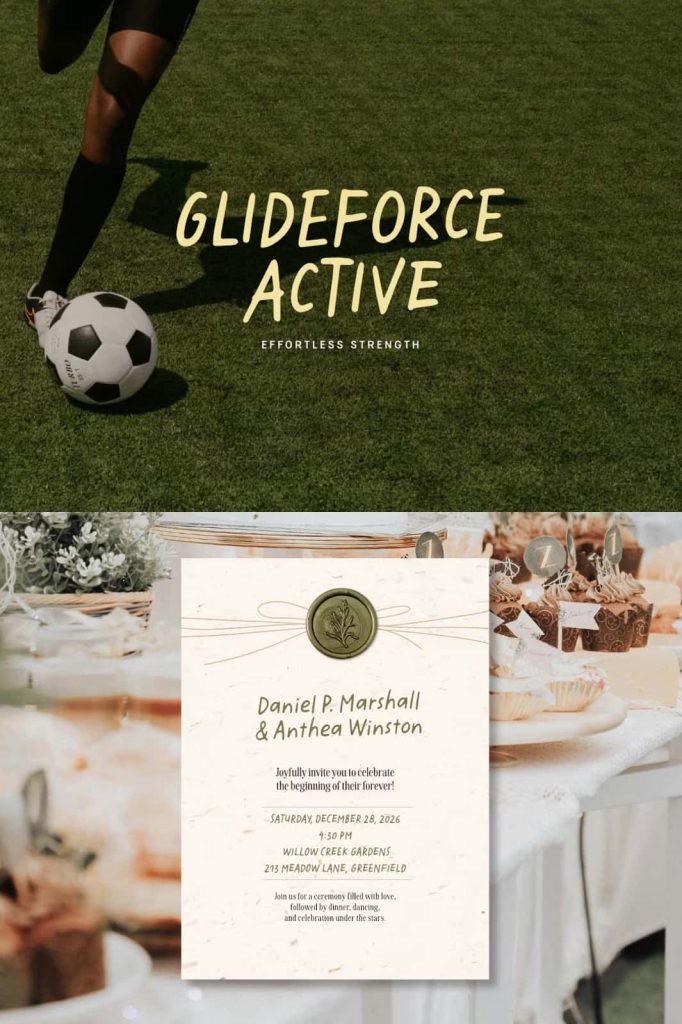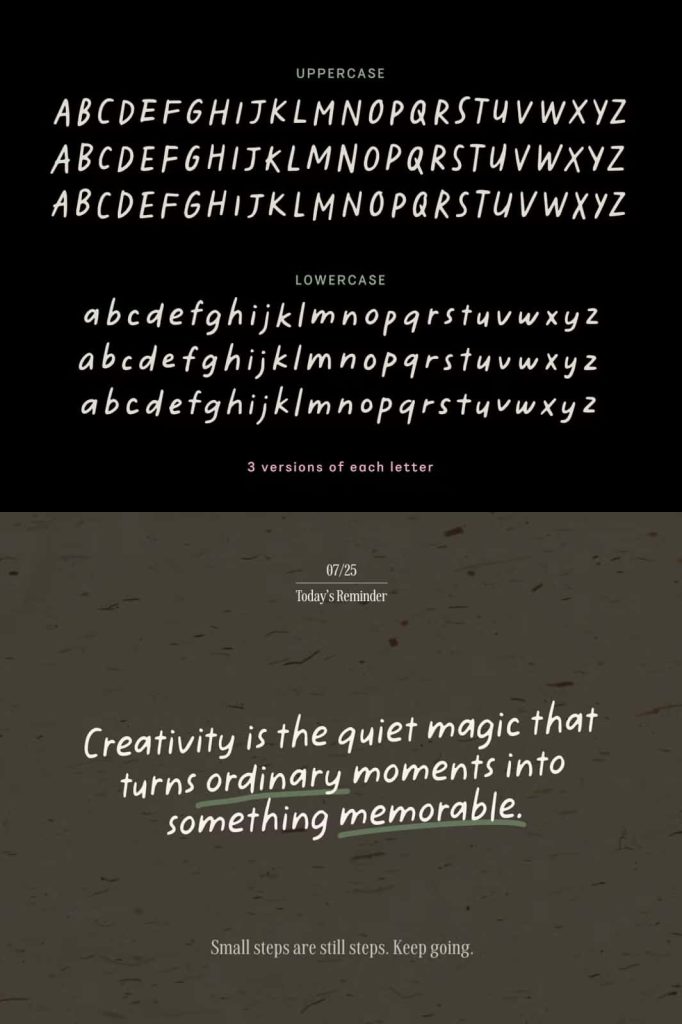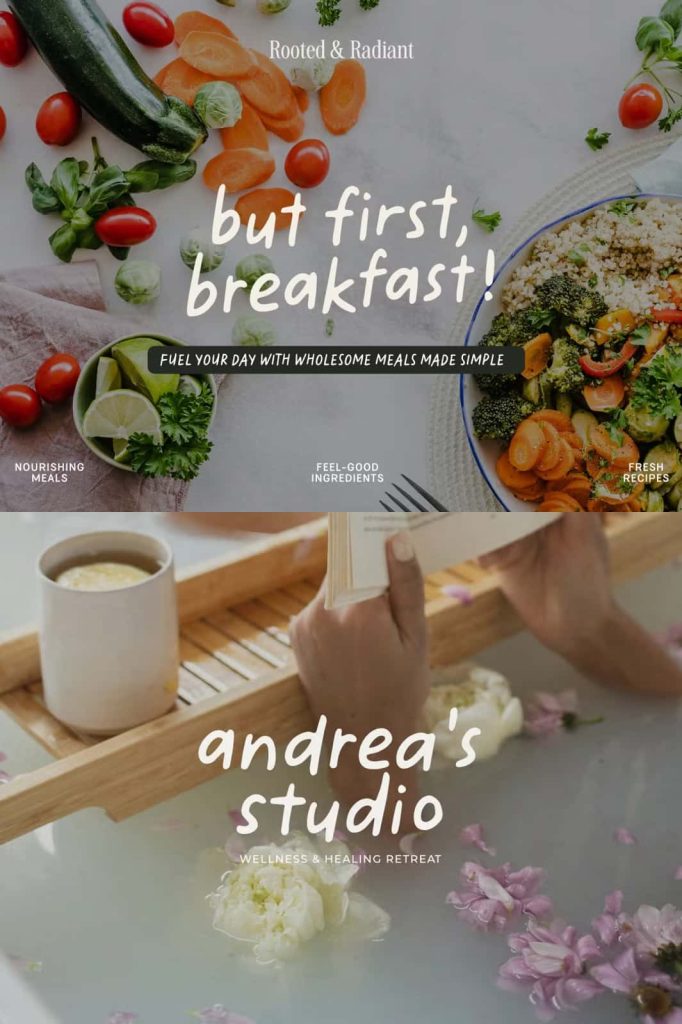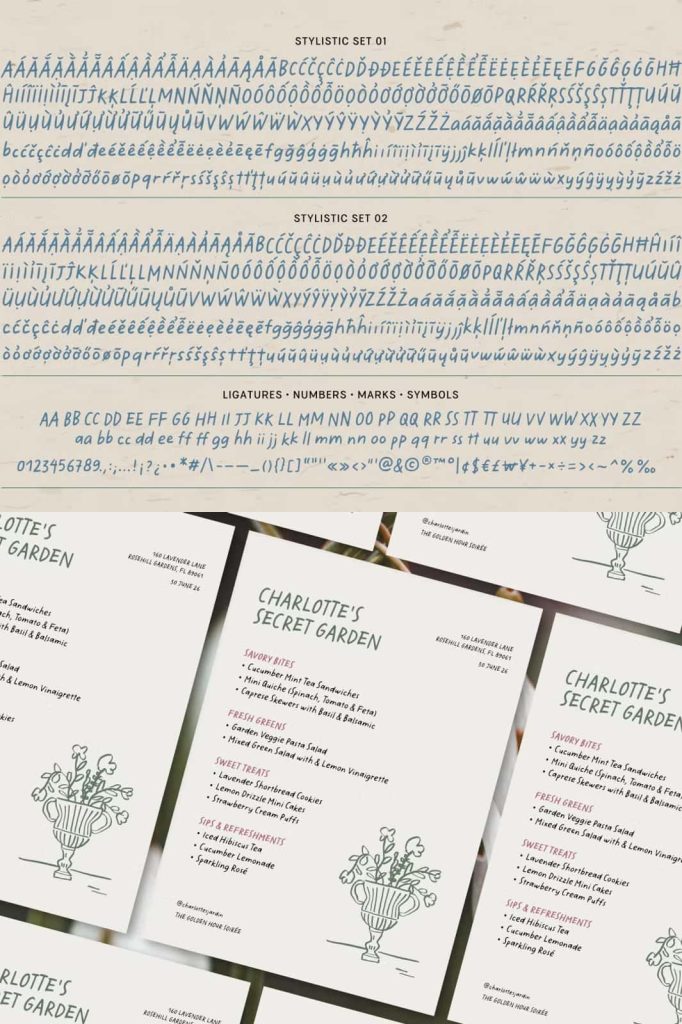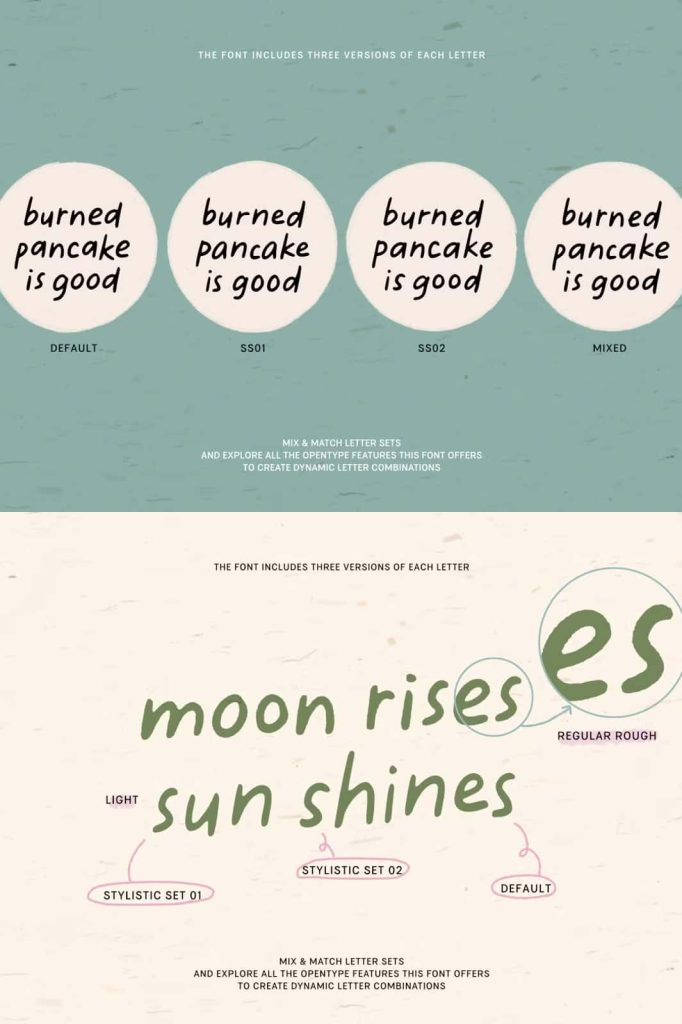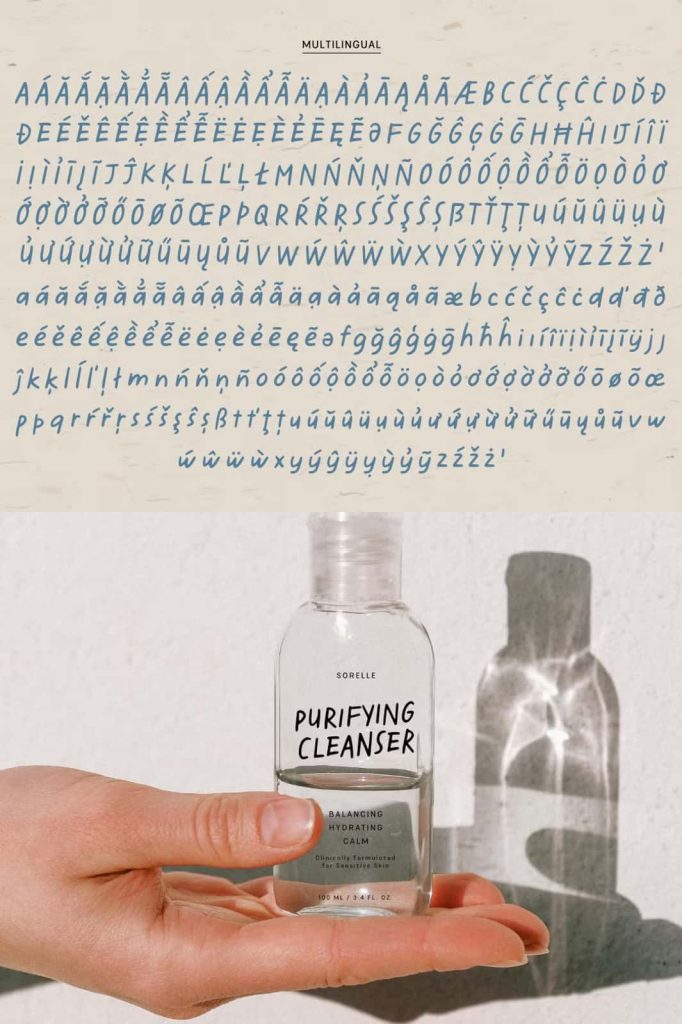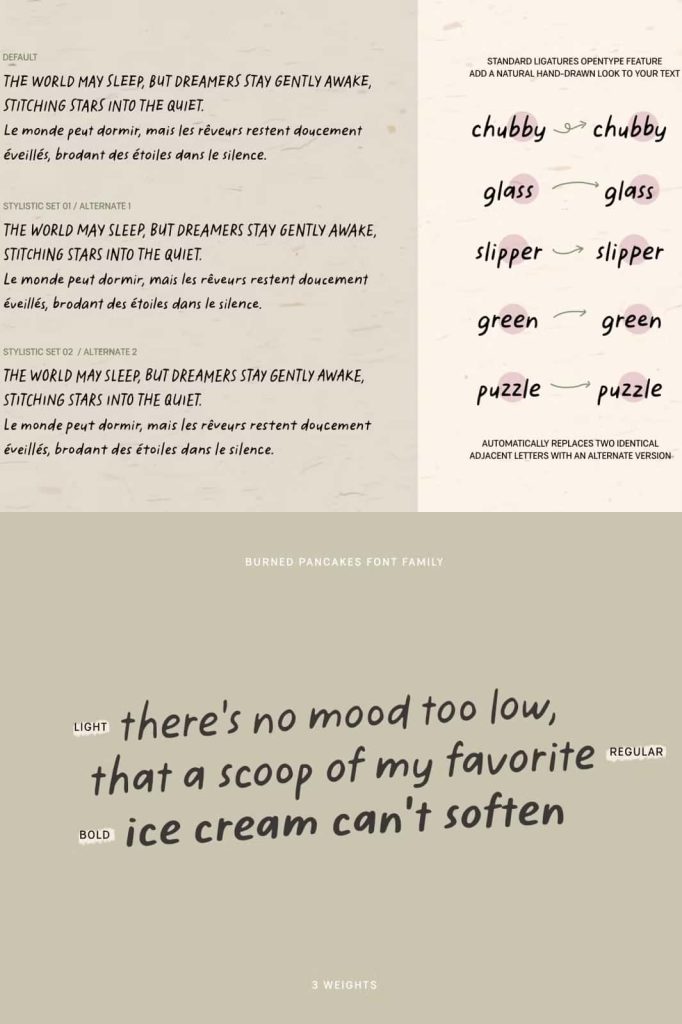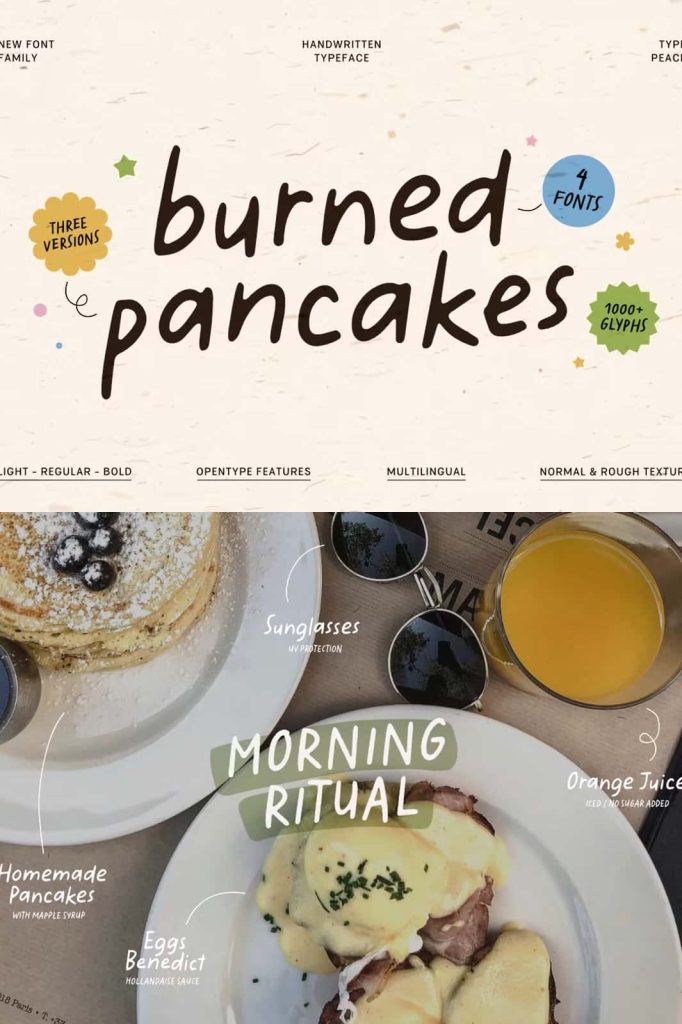
BURNED PANCAKES | Handwritten Font
Burned Pancakes Handwritten Typeface – A Playful and Relaxed Font Full of Personality
Burned Pancakes is a charming handwritten typeface designed to bring warmth, creativity, and authenticity to your design projects. Featuring relaxed letterforms, casual strokes, and a naturally flowing rhythm, this font captures the essence of genuine handwriting while maintaining excellent readability. Its playful personality makes it an ideal choice for designers who want to create approachable, engaging, and memorable visual experiences.
Unlike rigid or overly structured fonts, Burned Pancakes embraces a laid-back style that feels comfortable and inviting. Every character reflects a natural handwritten movement, helping designs communicate friendliness and creativity. Whether you are working on branding, social media content, packaging, invitations, promotional materials, or personal projects, this typeface adds a distinctive handcrafted touch that helps your message stand out.
With three variations of each letter, advanced OpenType features, stylish ligatures, and multilingual support, Burned Pancakes offers both flexibility and functionality. Designers can create typography that feels dynamic and organic while maintaining a polished and professional appearance.
A Handwritten Typeface with Natural Flow
Burned Pancakes was created to capture the relaxed beauty of real handwriting. The font features loose, expressive strokes that flow naturally from one letter to the next, creating smooth and visually appealing text compositions. This effortless rhythm allows designers to build projects that feel personal, authentic, and emotionally engaging.
The font’s casual style helps establish a welcoming tone that appeals to modern audiences. Whether used for short headlines, decorative typography, or longer text elements, Burned Pancakes creates a friendly atmosphere that encourages connection and engagement.
Its handcrafted appearance works exceptionally well in creative industries where personality and originality are important. The font helps brands and creators move away from generic typography and embrace a more distinctive visual identity.
Three Letter Variations for Authentic Typography
One of the standout features of Burned Pancakes is the inclusion of three variations for each letter. These alternate characters allow the font to mimic the natural inconsistencies found in genuine handwriting, preventing repetitive patterns and creating a more realistic appearance.
By automatically rotating between character variations, designers can achieve text that feels fluid and spontaneous. This feature adds visual interest and helps maintain authenticity, especially in larger typography compositions where repeated letters often become noticeable.
The result is typography that feels handcrafted rather than digitally generated, giving projects a unique and personal quality that audiences appreciate.
Benefits of Multiple Character Variations
• Creates a more natural handwritten appearance
• Reduces repetitive letter patterns
• Adds visual diversity to text layouts
• Enhances authenticity and personality
• Improves the overall aesthetic of creative projects
Advanced OpenType Features and Beautiful Ligatures
Burned Pancakes includes powerful OpenType functionality that enhances the overall typography experience. The built-in ligatures automatically connect certain letter combinations, producing smoother and more visually pleasing text.
These natural connections create a seamless handwritten effect that improves readability while maintaining the font’s artistic character. Designers can take advantage of these features to create sophisticated typography without requiring extensive manual adjustments.
The OpenType capabilities make Burned Pancakes an excellent choice for professional projects that demand both creative freedom and technical flexibility.
Perfect for Branding and Logo Design
Typography plays a significant role in shaping brand identity, and Burned Pancakes offers a unique voice that feels approachable, creative, and memorable. Its handwritten style helps businesses establish a stronger emotional connection with customers while communicating authenticity and individuality.
The font works exceptionally well for small businesses, artisan brands, creative studios, cafés, bakeries, lifestyle products, handmade goods, and personal brands. Its relaxed personality creates logos and visual identities that feel welcoming and genuine.
Designers can combine Burned Pancakes with modern layouts, illustrations, and supporting fonts to create branding systems that balance creativity and professionalism.
Create Engaging Social Media Graphics
In today’s competitive digital landscape, distinctive typography helps content stand out. Burned Pancakes provides the perfect solution for social media graphics that require personality and visual appeal. Its playful style attracts attention while maintaining a friendly and approachable tone.
If you are searching for a handwritten typeface that balances authenticity, charm, and usability, Burned Pancakes is an excellent choice. Its friendly character and creative versatility make it a valuable addition to any designer’s font collection, helping every project feel more personal, memorable, and visually appealing.